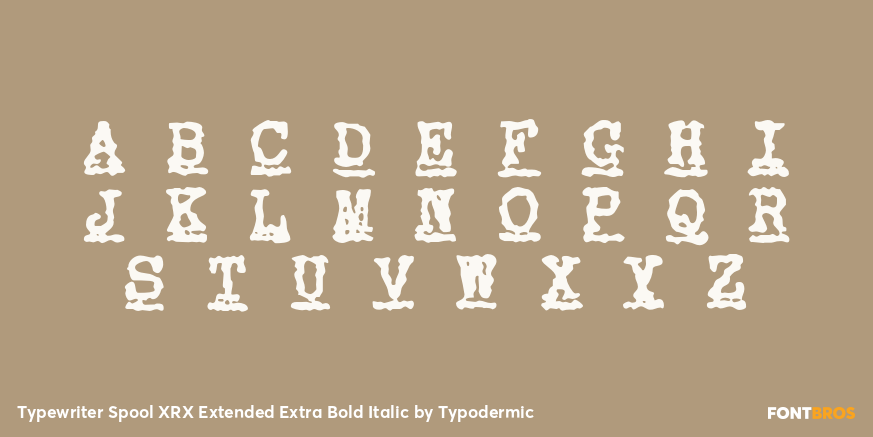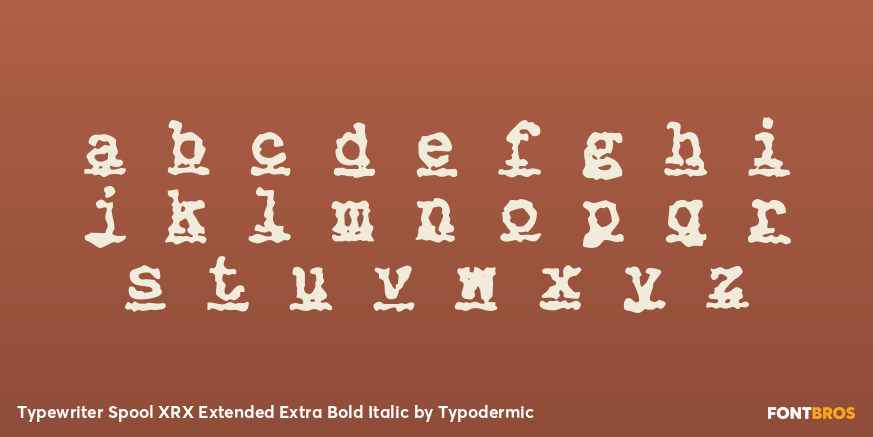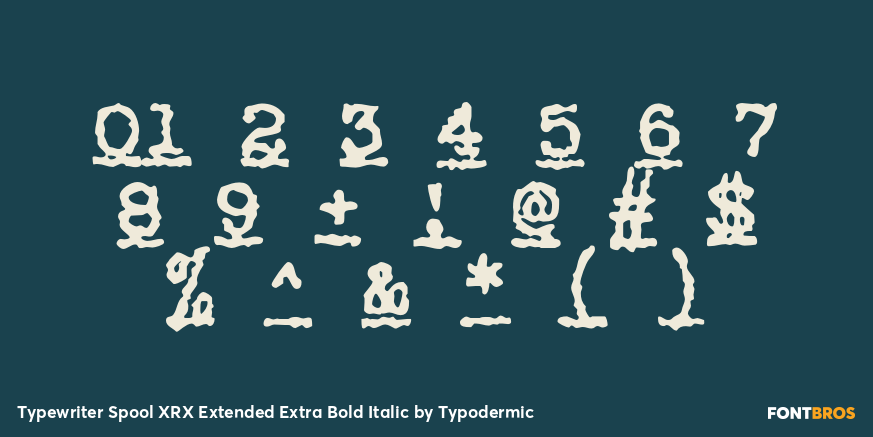
Typewriter Spool XRX Extended Extra Bold Italic
Typewriter Spool XRX makes the family look copied, transmitted, and reproduced rather than freshly typed. Broken contours, uneven dark areas, and distorted impressions suggest a document that has passed through photocopiers or other reproduction systems, while the underlying typewriter structure keeps the source legible. The condition is shared across all XRX weights, widths, and italics.
Use XRX for duplicated reports, investigative exhibits, evidence packets, intelligence-file props, photocopied correspondence, archival inserts, and editorial graphics built around recovered documents. Pair it with CLN when an original and a degraded copy need to look like stages of the same record.